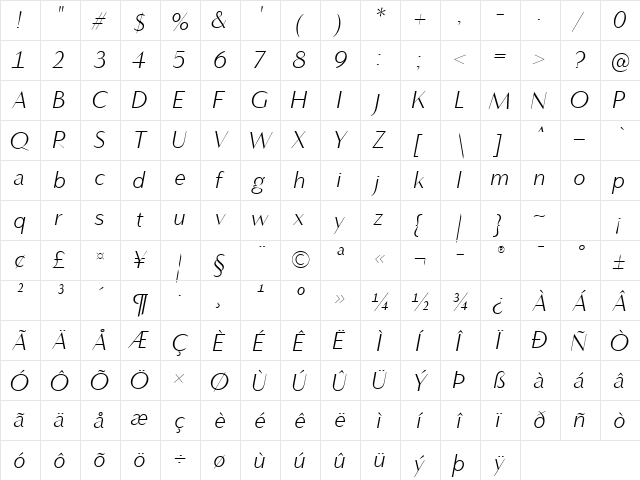
Vanitas Light
| Foundry | AE Type / Michael Jarboe |
| Designer | Michael Jarboe |
| Year | 2010 |
Design Context for Vanitas Typeface
Vanitas offers clean, dependable letterforms without strong stylistic allegiance, making it a practical choice for designers who need flexibility. Its slender proportions lend an understated elegance to any composition.
Pro Tip: Use Vanitas in both headline and body roles to test its range before committing to a single application.